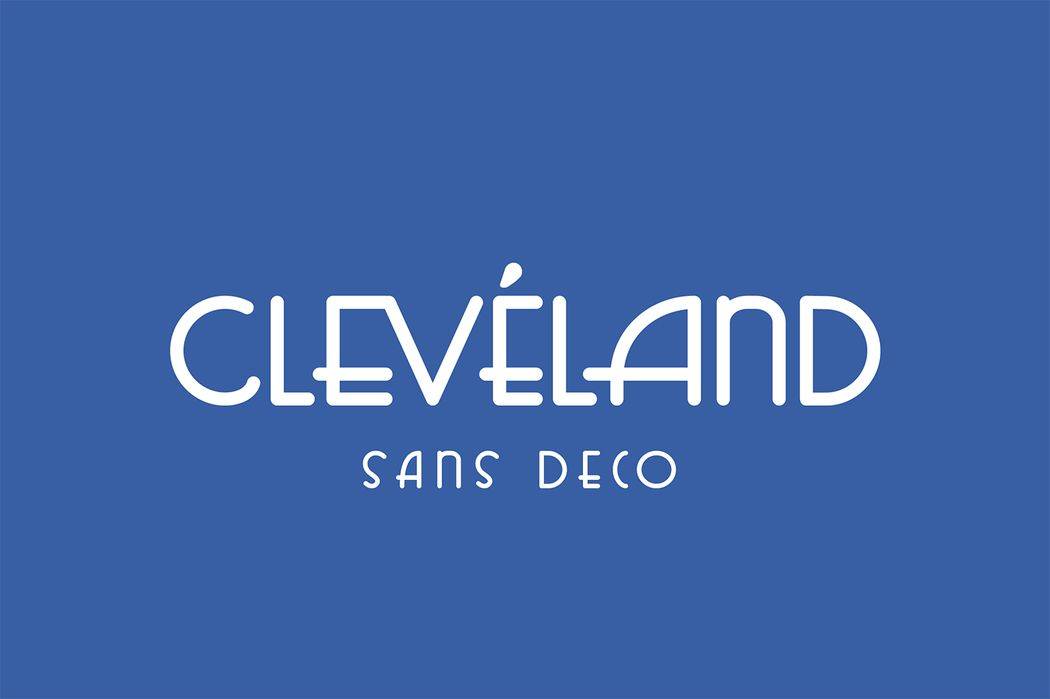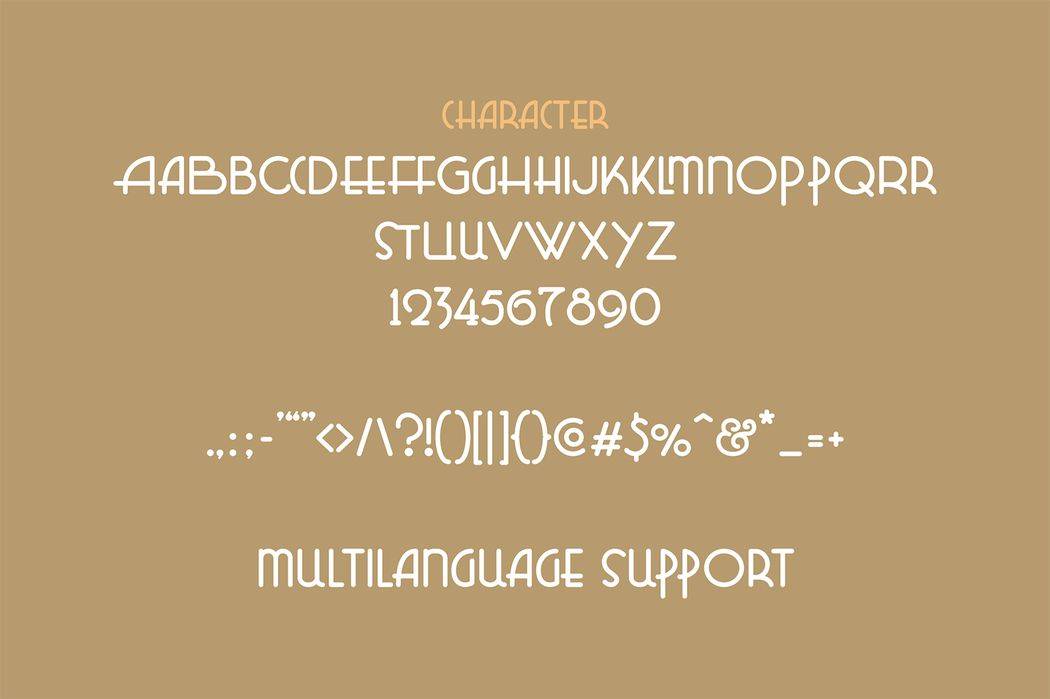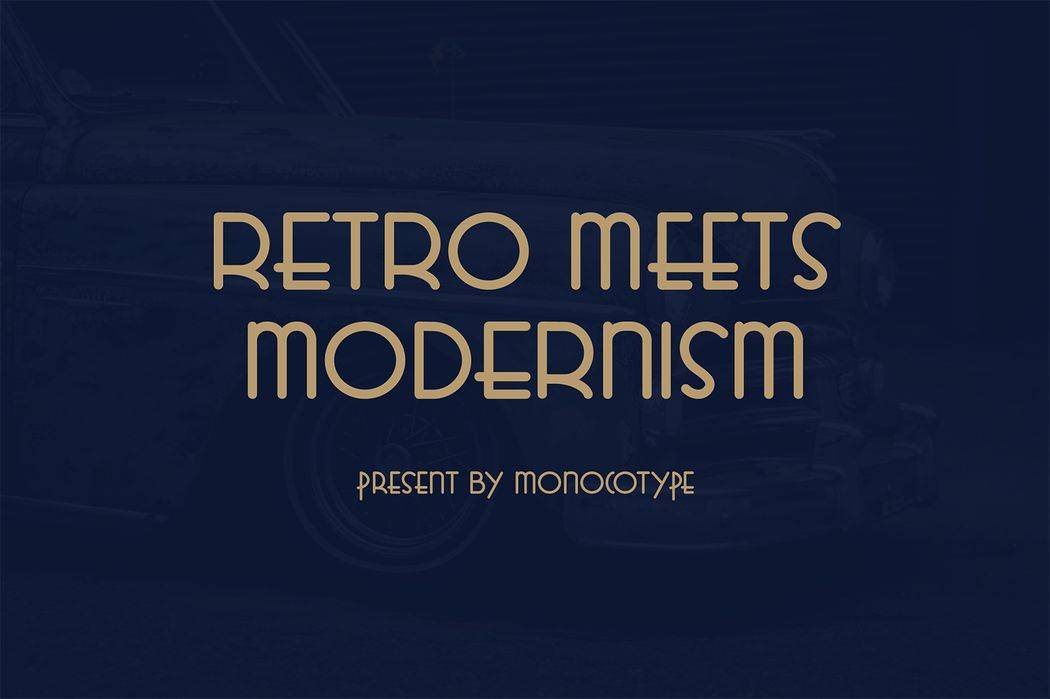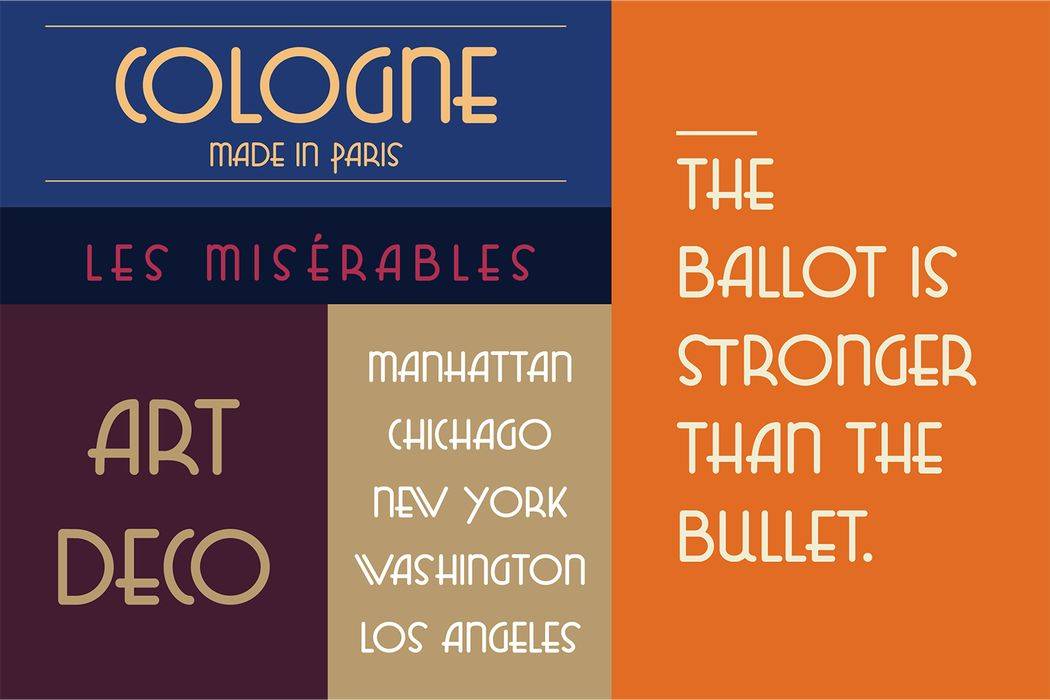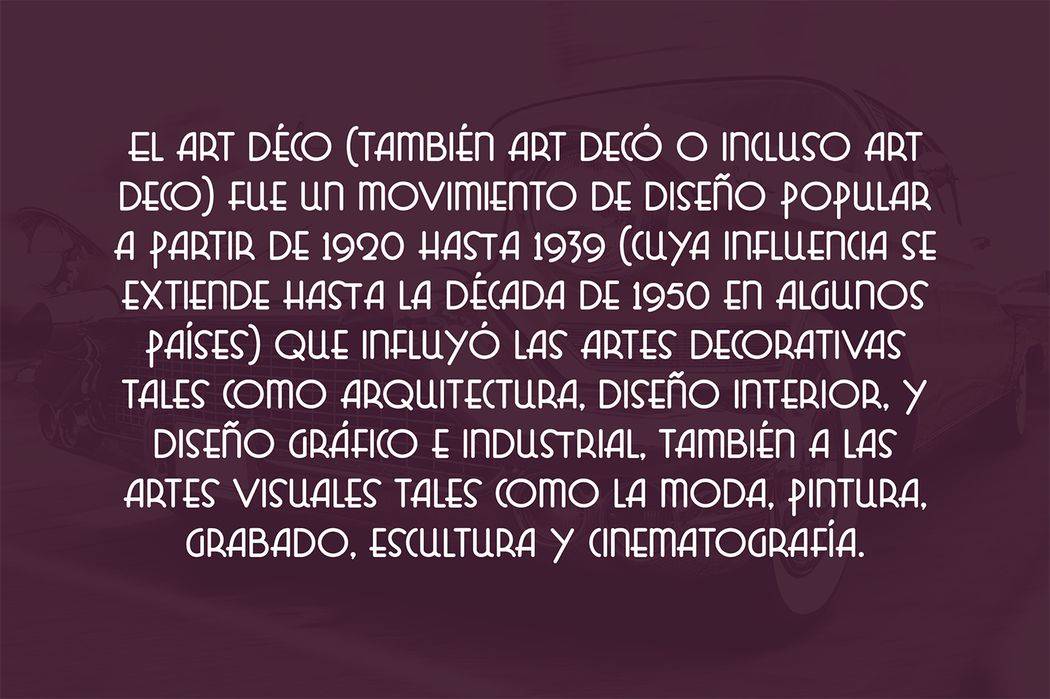
Cleveland is a distinctive sans serif font with a playful and artistic flair, featuring tall, narrow letterforms with consistent stroke weight and subtle geometric curves. Its unique design, including stylized uppercase letters and gently rounded terminals, gives it a modern yet retro feel ideal for creative branding, headlines, and display use where a touch of personality and elegance is desired. This font works well for projects needing a blend of sophistication and approachability, such as fashion branding, editorial headlines, and stylish poster designs.
Cleveland Font
About Cleveland Font
| Font family | Cleveland Font |
| Designer | Abdurrahman Hanif |